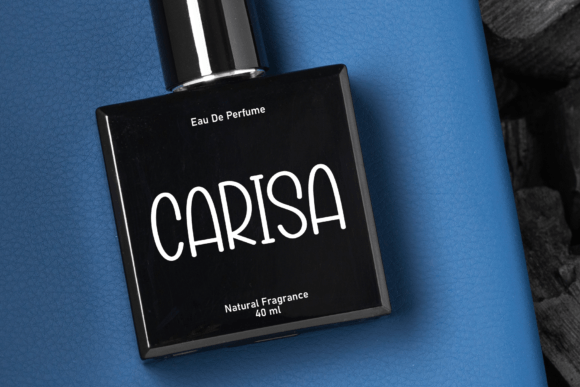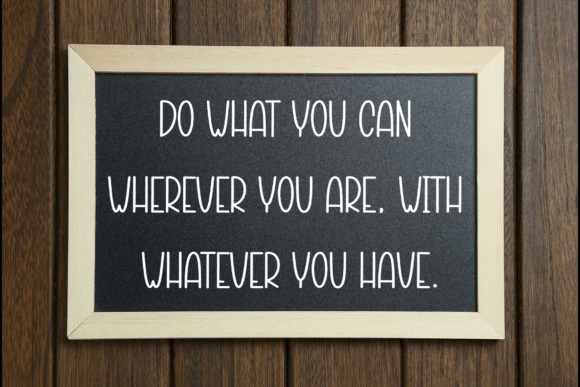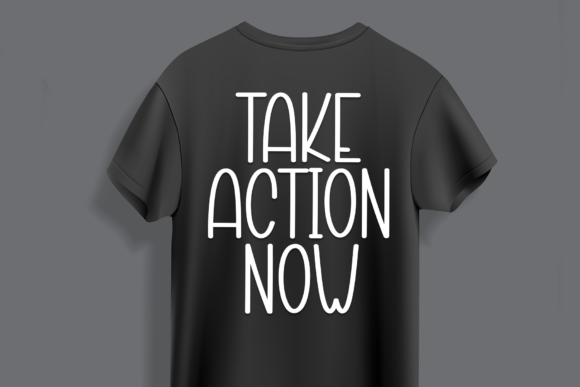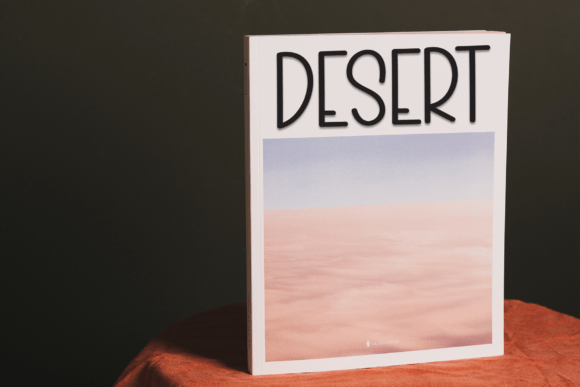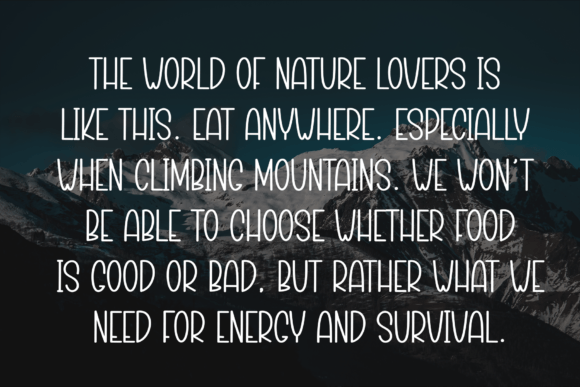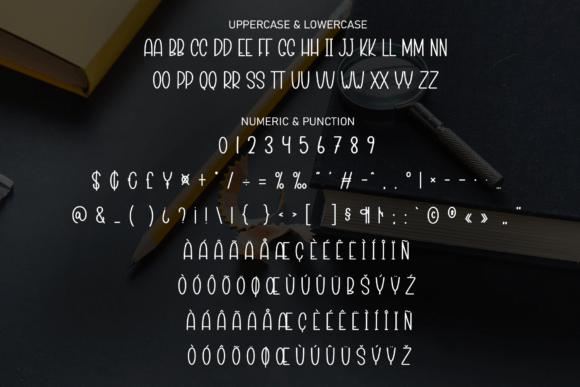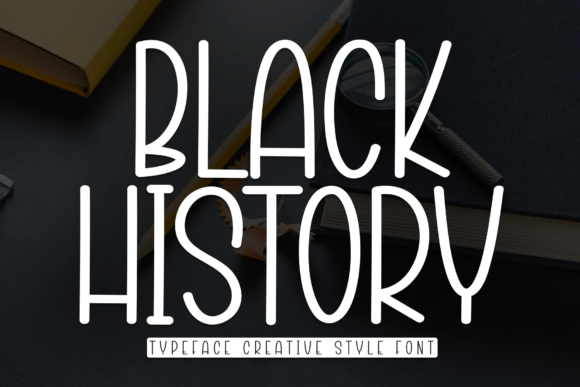
Embracing Heritage: The Significance of Black History Font in Celebrating Black History Month
Black History Month is a profound celebration that honors the achievements, culture, and contributions of Black people throughout history. It’s a time to acknowledge and recognize their impact on society, fostering a deeper understanding and appreciation of the rich heritage and experiences that have shaped the world we live in today. For designers and crafters, this month serves as an inspiring period to explore and incorporate elements that reflect the essence of Black history and culture into their work. One such element is the Black History Font, a typographic tool that can add depth, meaning, and significance to designs, making them more engaging and relevant during this commemorative period.
The Power of Typography in Cultural Expression
Typography is a powerful form of cultural expression. The fonts we choose can convey emotions, reflect identities, and carry historical significance. When it comes to celebrating Black History Month, selecting a font that resonates with the theme can enhance the impact of any design or craft project. The Black History Font is specifically designed to capture the spirit and essence of Black culture and history. It can range from bold and strong typefaces that reflect resilience and strength to elegant and graceful fonts that highlight the beauty and richness of Black heritage.
Exploring the Black History Font
The Black History Font can encompass a variety of typefaces that are inspired by African diasporic cultures, historical documents, and significant figures from Black history. These fonts can be used in a multitude of projects, from posters and flyers announcing events and exhibitions to social media graphics highlighting achievements and contributions of Black individuals. Designers and crafters can explore digital archives, historical texts, and cultural artifacts to find inspiration for creating or selecting fonts that are authentic and meaningful.
Ways to Incorporate Black History Font into Your Designs
- Event Promotions: Use a Black History Font to create eye-catching posters, flyers, and social media posts for events celebrating Black History Month. Choose a font that reflects the theme of the event, whether it’s a lecture, exhibition, or performance.
- Tribute Graphics: Design graphics that pay tribute to influential Black figures. A strong, bold font can convey respect and admiration, while a more elegant font might be used for highlighting achievements in arts and literature.
- Educational Materials: For educators and crafters creating learning materials, incorporating a Black History Font can make textbooks, worksheets, and presentations more engaging and relevant to the subject matter.
- Social Media Campaigns: Utilize Black History Font in social media posts and stories to share facts, quotes, and stories about Black history. This can help in spreading awareness and fostering a sense of community and respect.
Tips for Choosing the Right Black History Font
- Relevance: Ensure the font you choose is relevant to the theme or message you want to convey. For example, a vintage font might be perfect for highlighting historical contributions, while a modern font could be used for contemporary achievements.
- Legibility: While aesthetics are important, the font should also be legible across various platforms and sizes.
- Authenticity: Strive for authenticity by choosing fonts that have a genuine connection to Black culture and history. This could mean supporting font designers from the Black community or selecting fonts inspired by African typography.
Black History Month is a time to celebrate the profound impact of Black people on history and society. For designers and crafters, incorporating a Black History Font into their work is a meaningful way to honor this celebration. By choosing fonts that reflect the strength, beauty, and resilience of Black culture, creatives can produce designs that are not only visually compelling but also culturally significant. Whether through educational materials, tribute graphics, or social media campaigns, the Black History Font can play a pivotal role in spreading awareness, fostering respect, and celebrating the achievements of Black individuals throughout history.